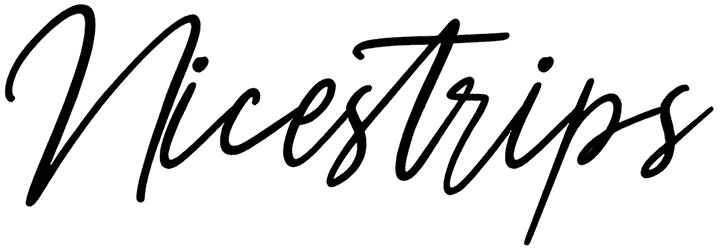
Nicestrips Font
A combination of personal identity and minimal calligraphic outward can give your design a stylish and confident look. As a handwritten font with an inherent mood, Nicestrips can accomplish its utmost for a multitude of projects.
So, what are you waiting for? Put to the test for your following layouts, like logotype, magazines, invitation cards, fashion, or anything else. This script font, with no number support, comes with an interconnection that makes it problematic to read.